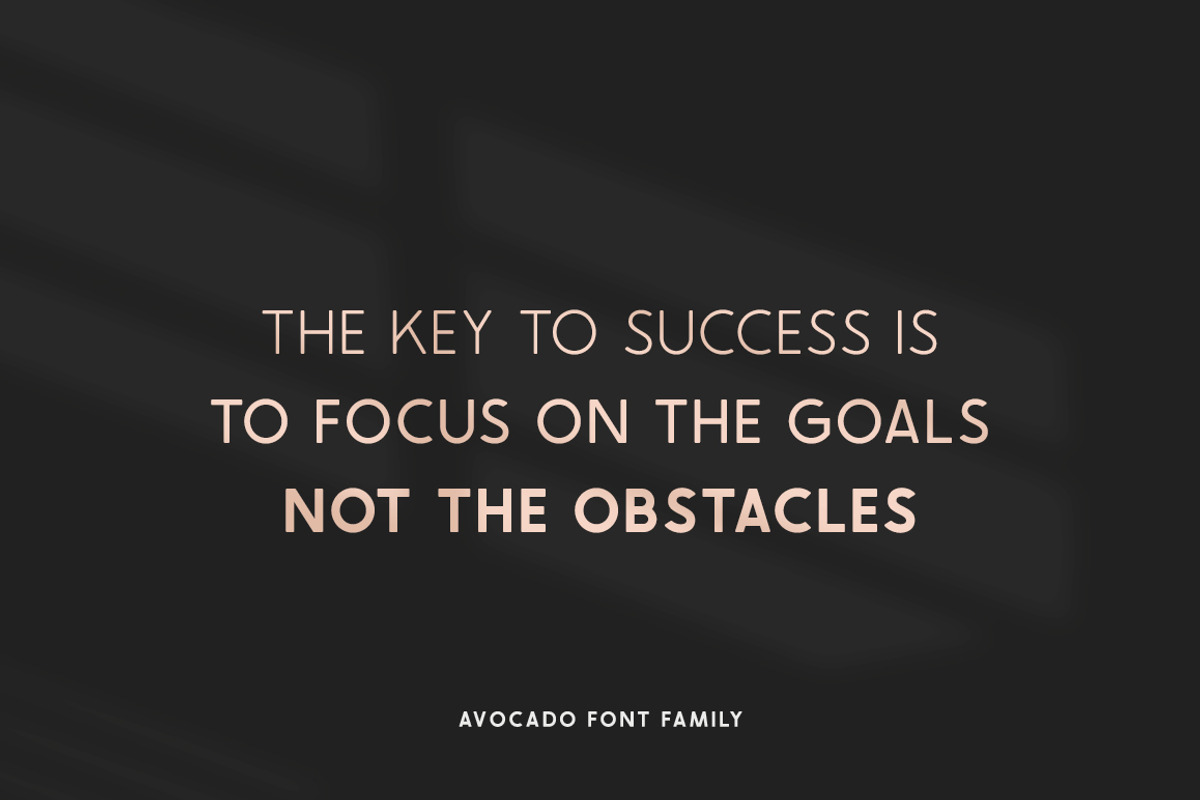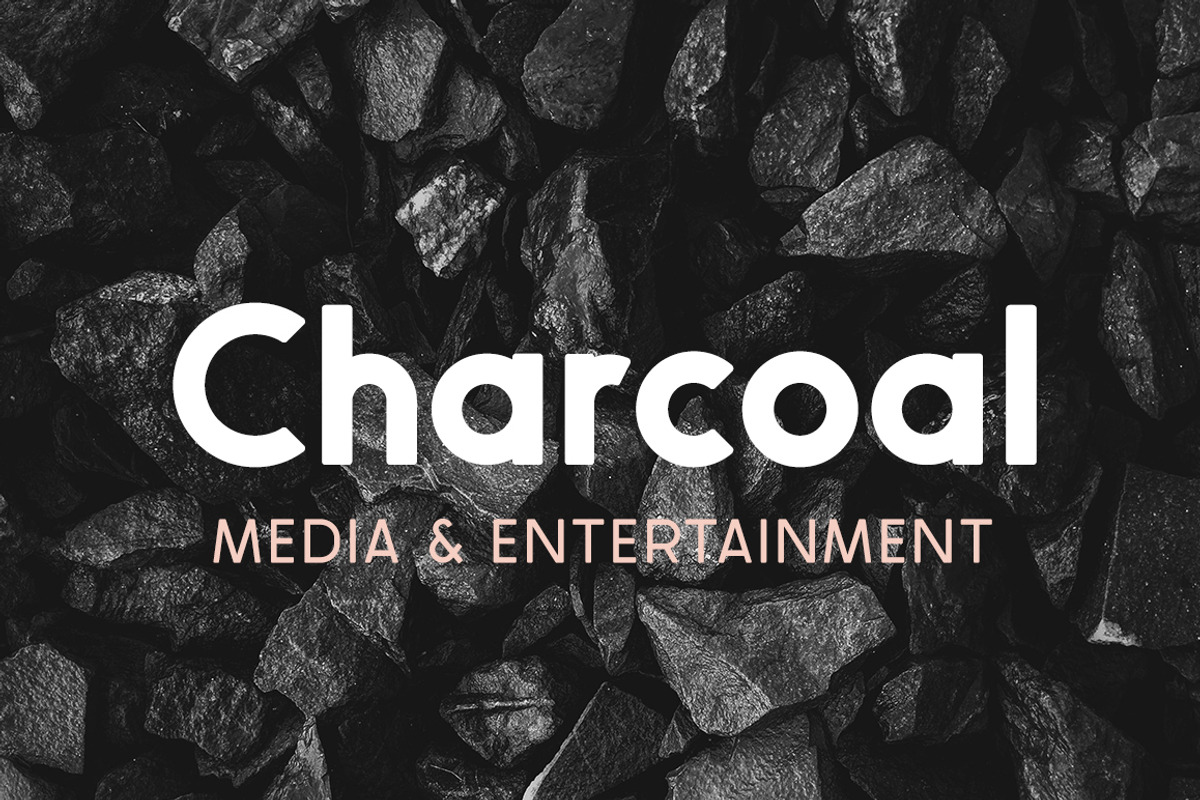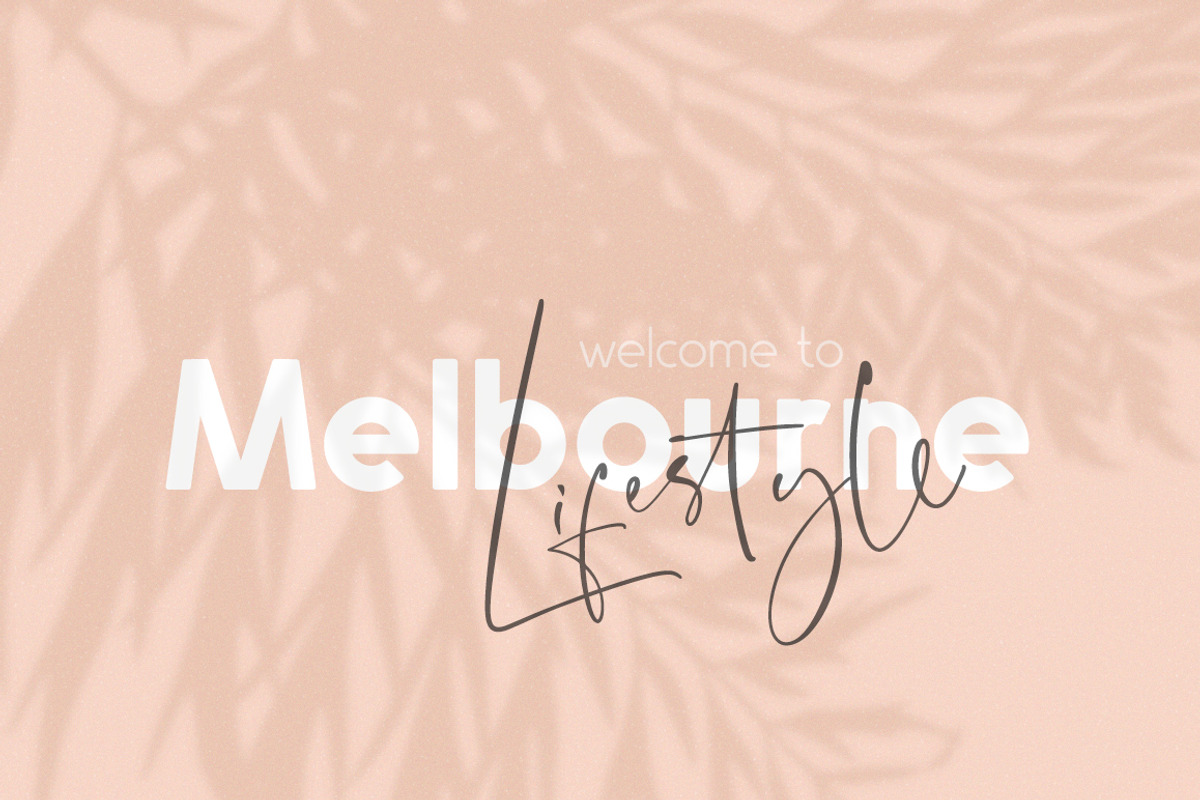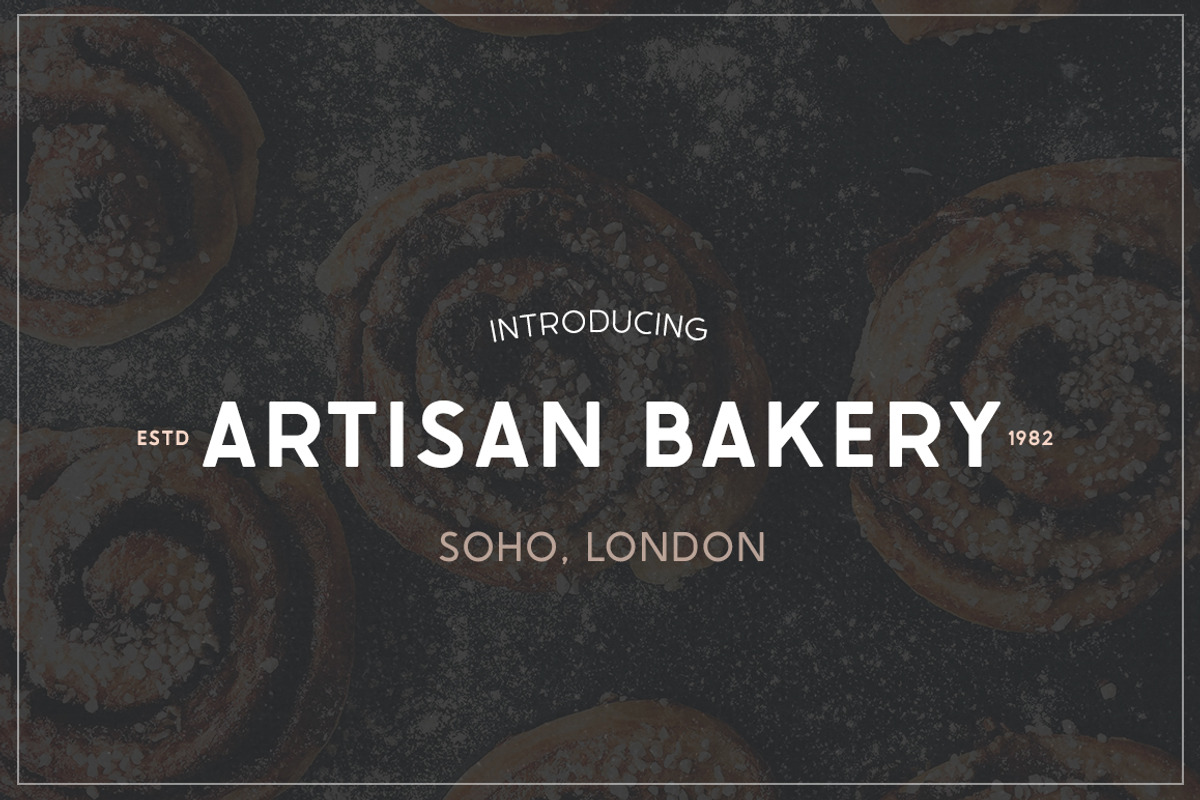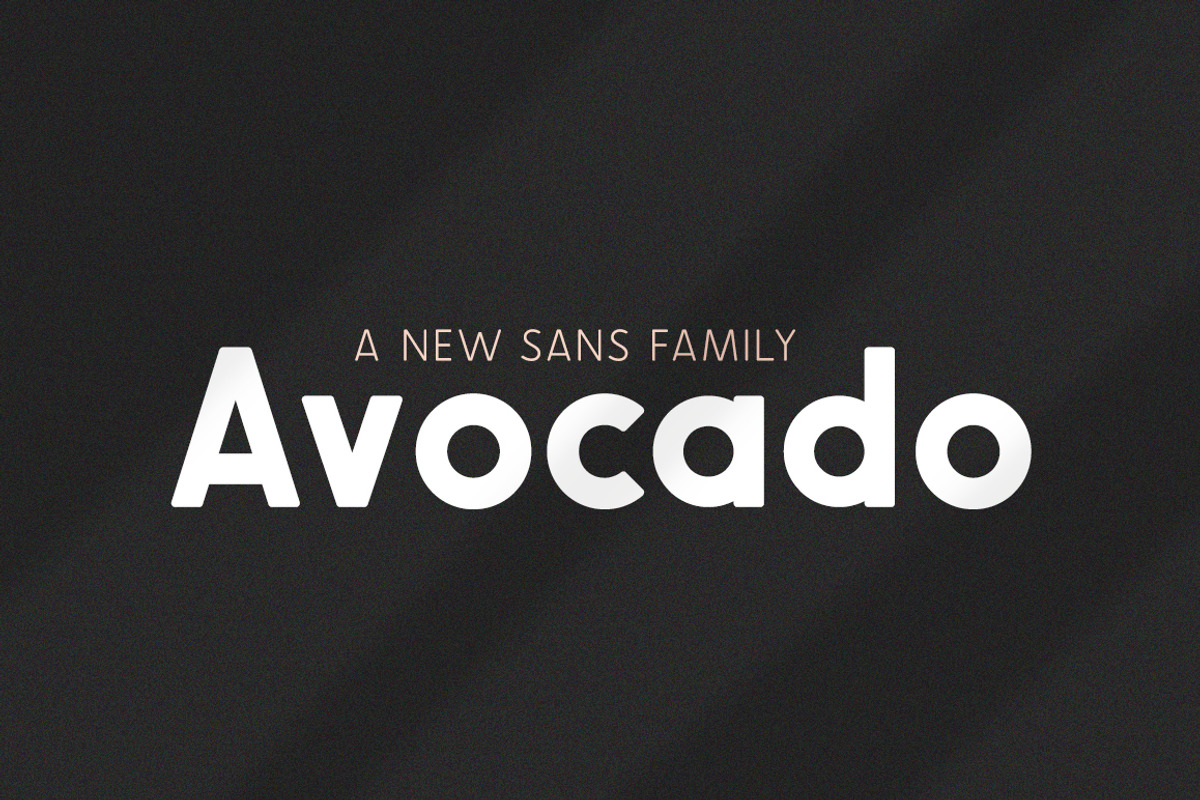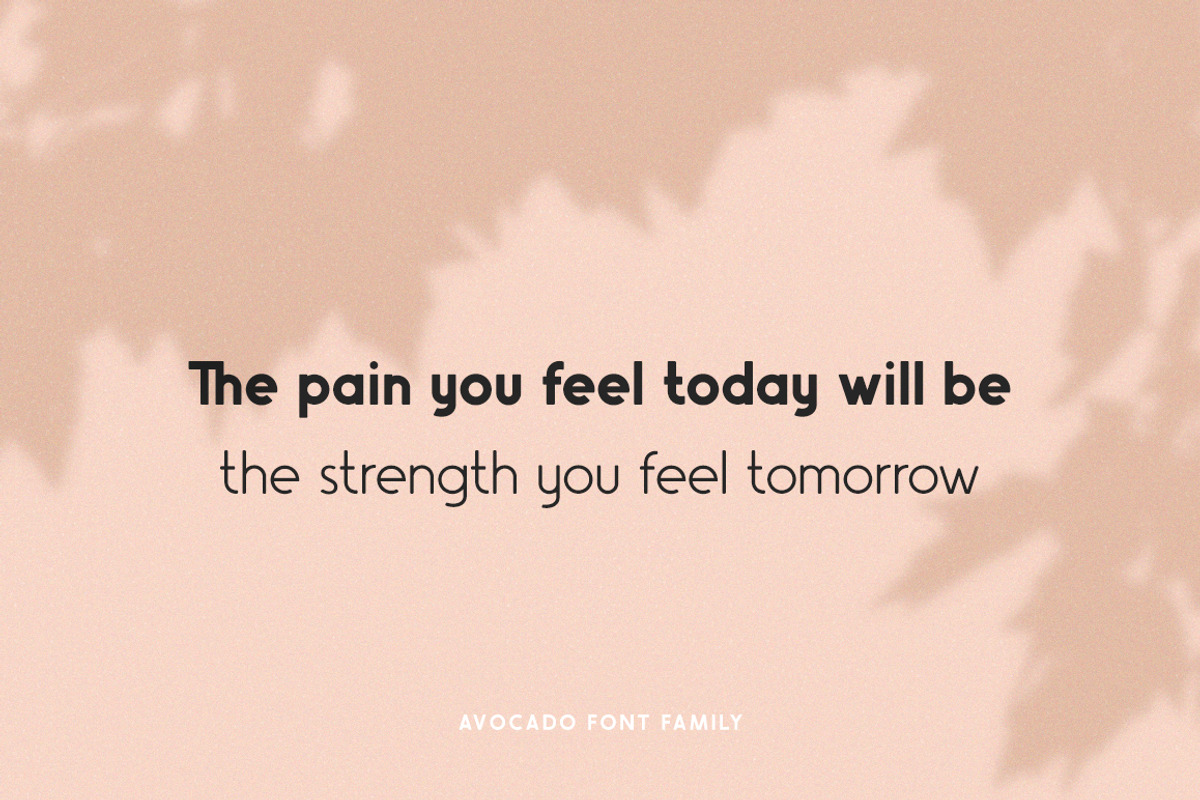
Avocado Sans Font Family
Avocado is a brand new font that includes three fabulous weights - Regular, thick and thin! They all work perfectly with each other and are the ideal accompaniment to scripts and serifs. Download this trio and see for yourself!
Why Avocado Sans Font Family is worth a look
Avocado Sans Font Family by Salt & Pepper Designs fits naturally into Branding, posters, packaging, typography.